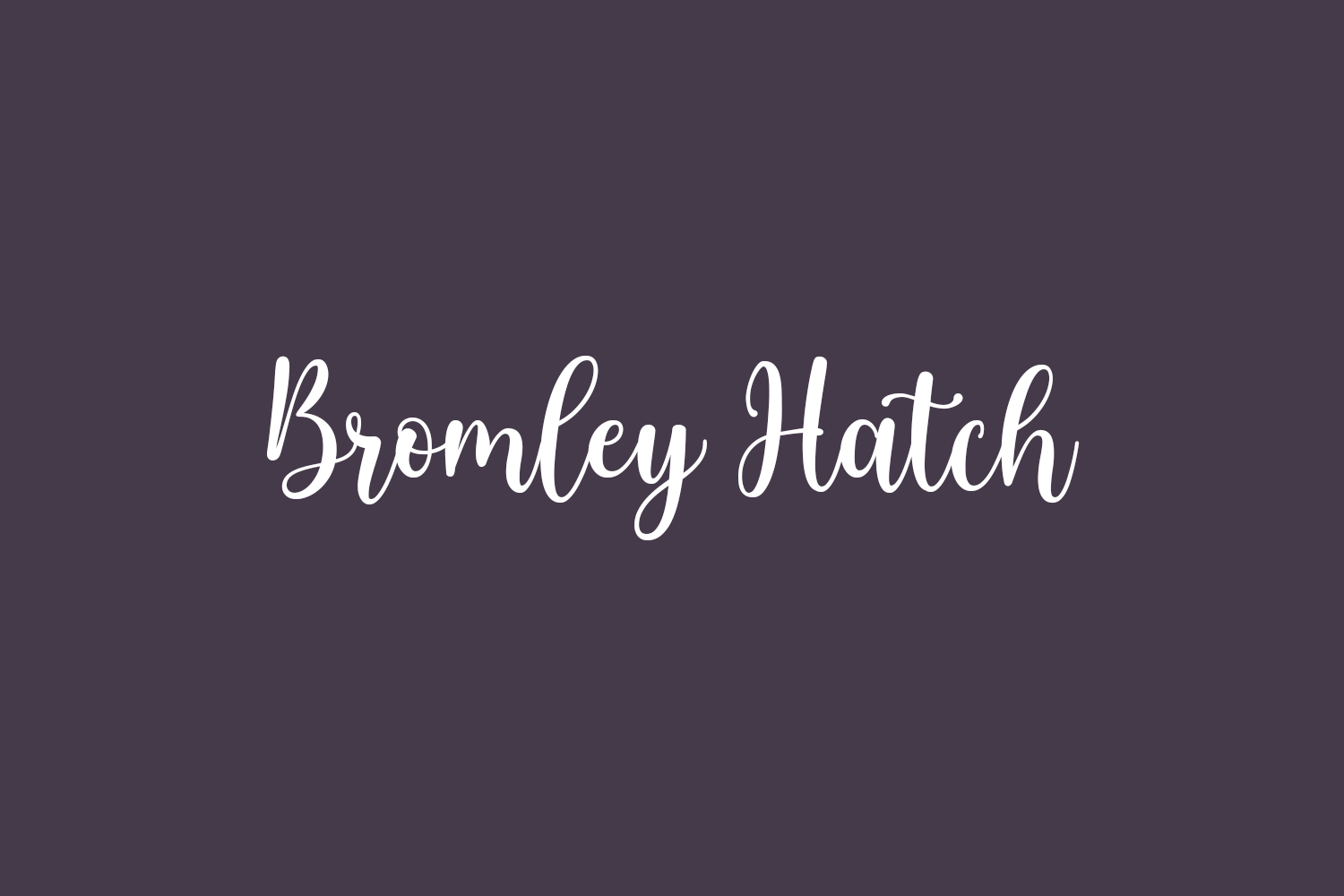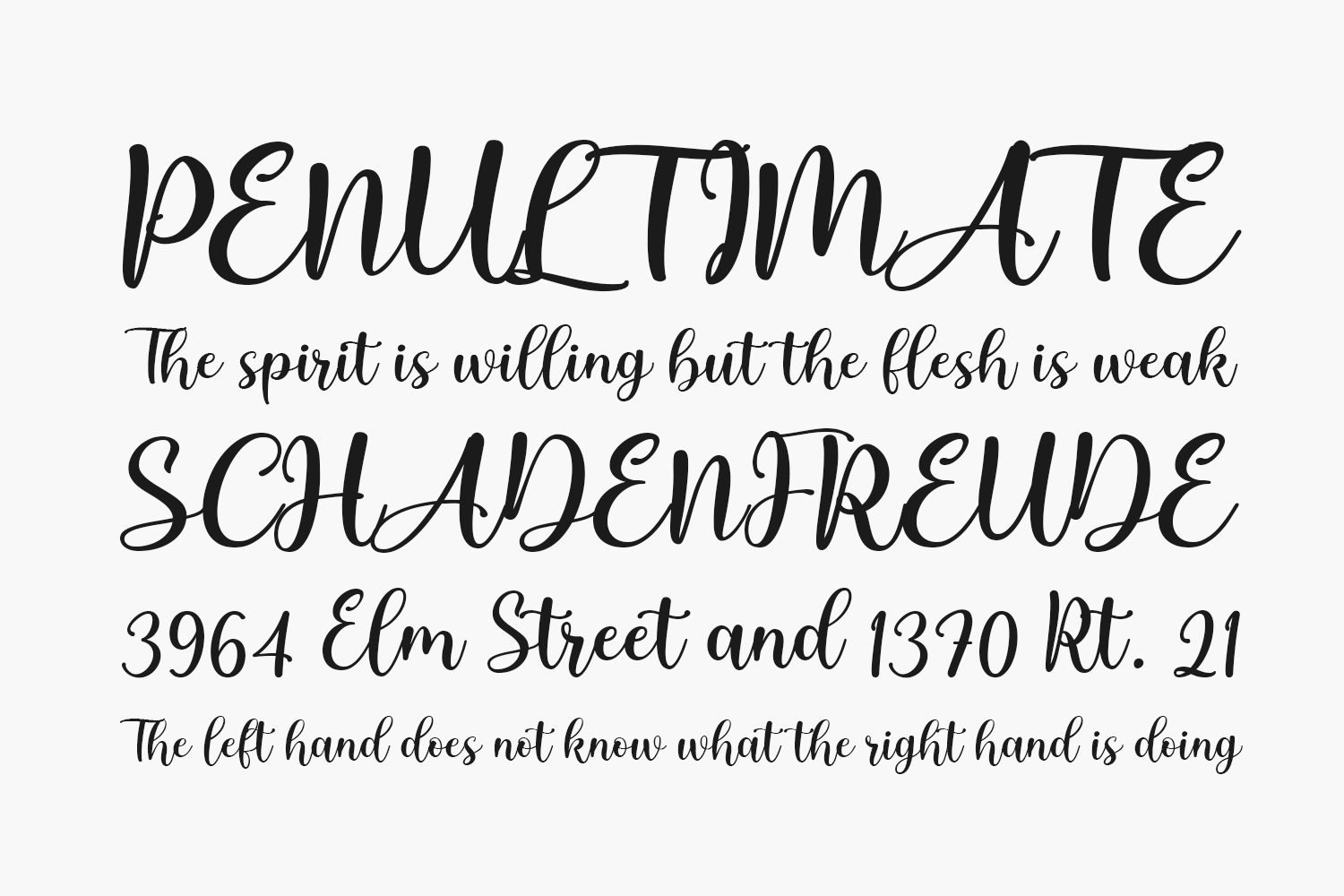
Bromley Hatch Free Font is a sweet handwritten font with cute nature-themed elements. Use it to brighten up any of your projects. Bromley Hatch Free Font was designed by Attract Studio and is free for personal use only. Please purchase the full version for commercial use.